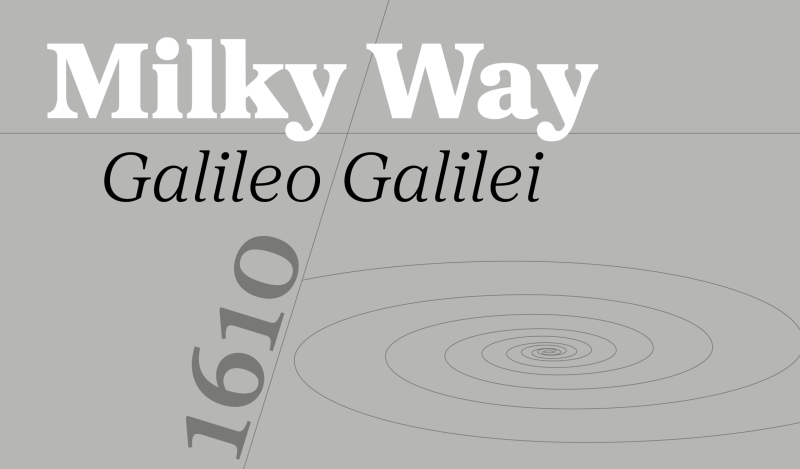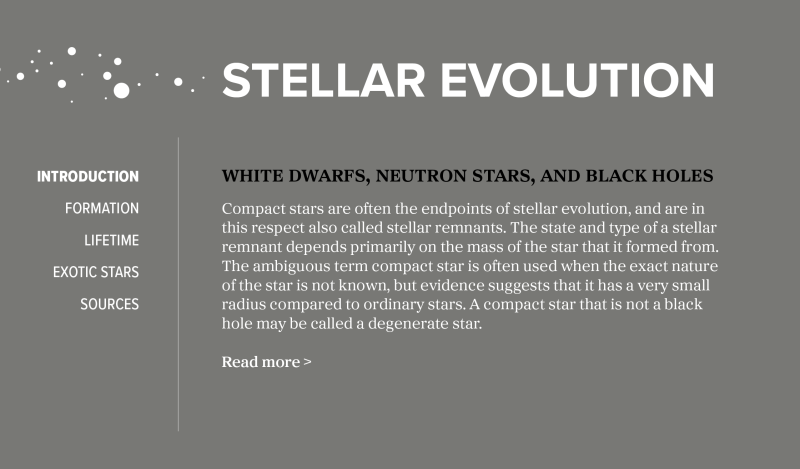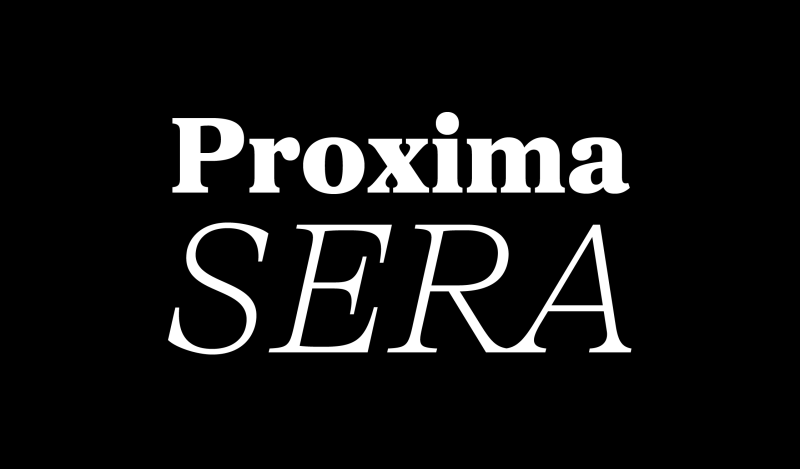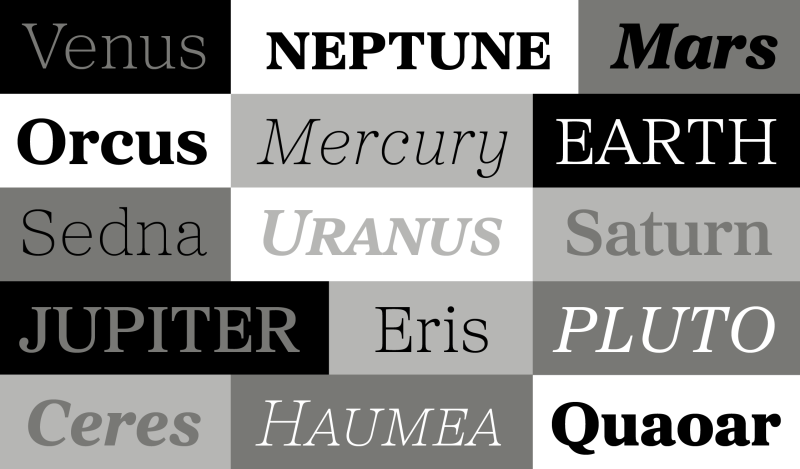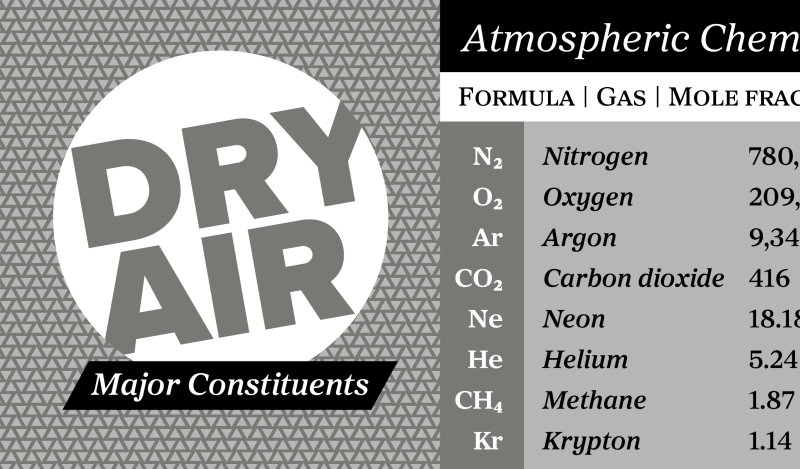
Proxima Sera Font Family
Proxima Sera (2022) answers the question that designers and typographers have asked for more than fifteen years—what serif typeface should I pair with Proxima Nova? Prox…
Proxima Sera (2022) answers the question that designers and typographers have asked for more than fifteen years—what serif typeface should I pair with Proxima Nova? Proxima Sera is a hybrid design, combining characteristics of old style and modern serif typefaces into something new that is clean and highly readable. While its proportions and range of weights are designed to harmonize with Proxima Nova, it stands alone just as well. Its even color and large x-height make it a logical choice for text settings, but Proxima Sera still has enough warmth for display use—especially Thin and Black. Try those in headlines, posters, or anywhere else you need to bring some fresh personality.
Where Proxima Sera Font Family works best
Proxima Sera Font Family gives long-form text a classic, trustworthy rhythm — ideal for magazine spreads, annual reports and book interiors.
Pair Proxima Sera Font Family with generous letter-spacing for wordmarks in fashion, hospitality, wine and jewellery branding.
Use Proxima Sera Font Family for slide titles in Keynote, PowerPoint or Google Slides to add authority without looking dated.
What is Proxima Sera Font Family good for?
Proxima Sera Font Family is a Serif Fonts typeface tagged Clean, Modern, Poster, Readable. It works well for headlines, logos, posters, social media graphics and branding projects that need a distinctive serif fonts look.